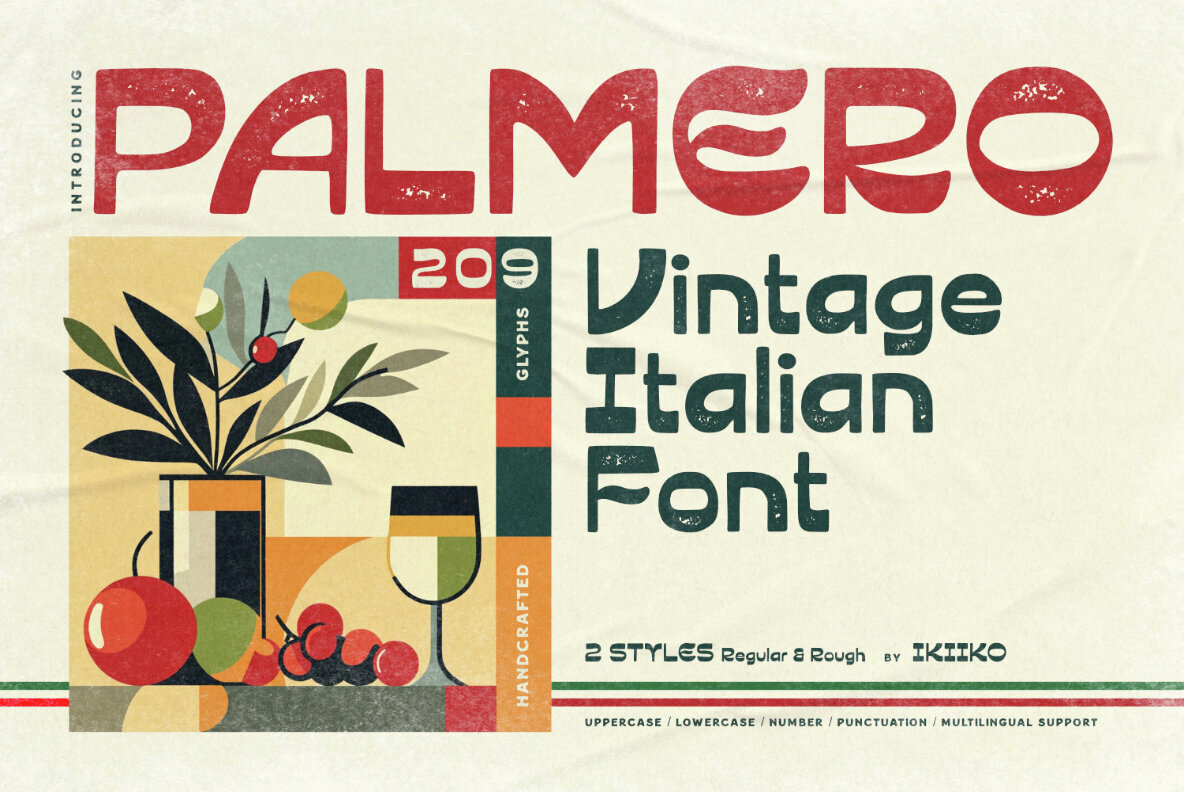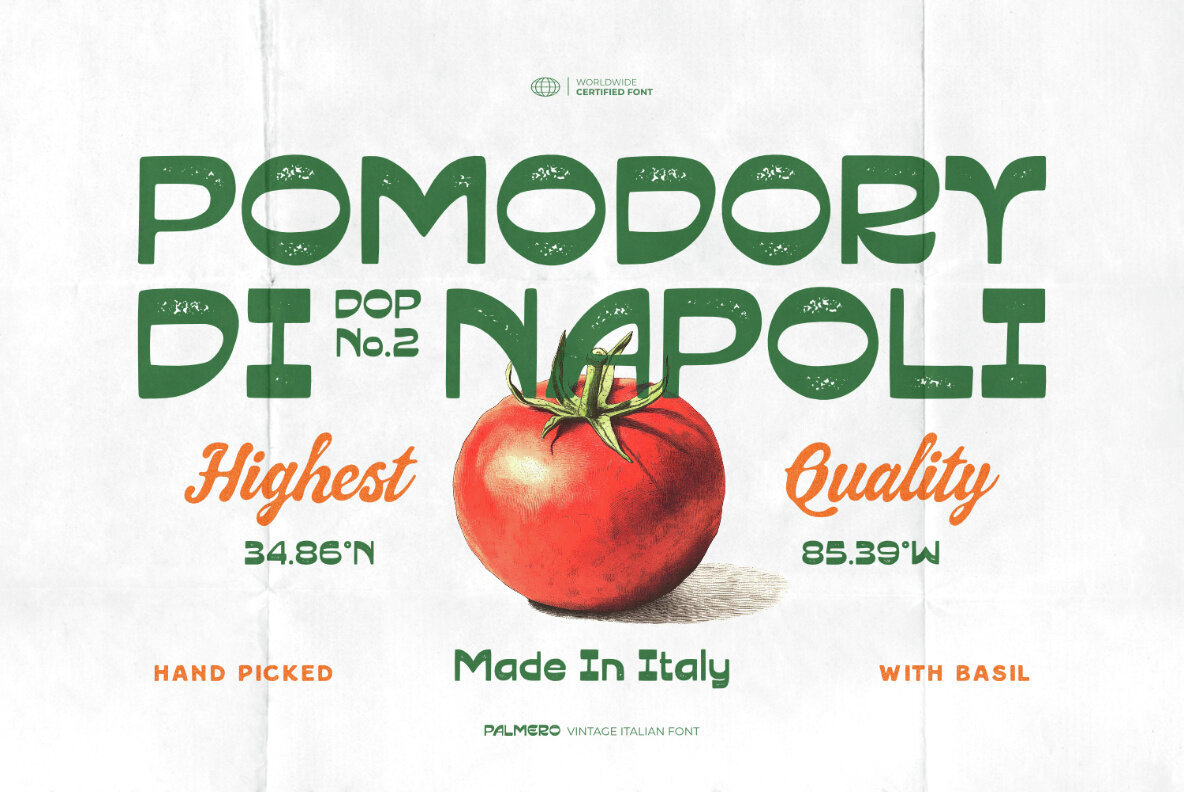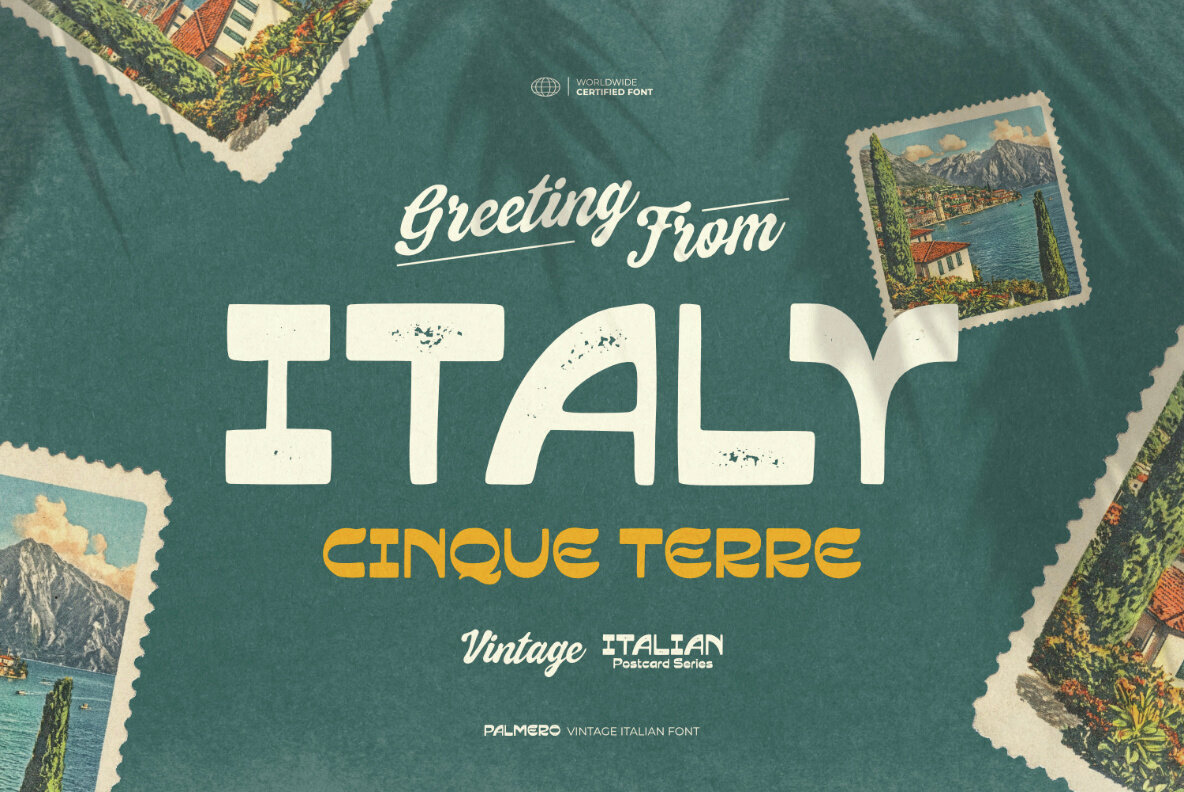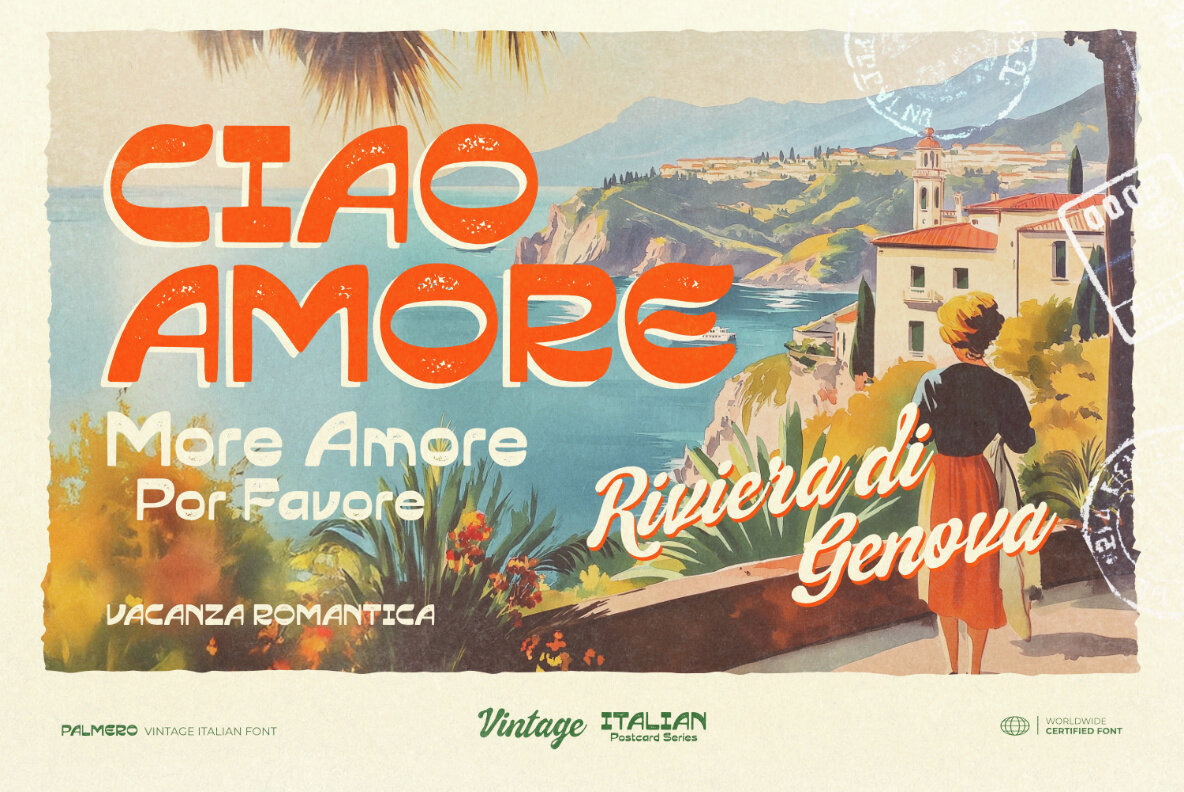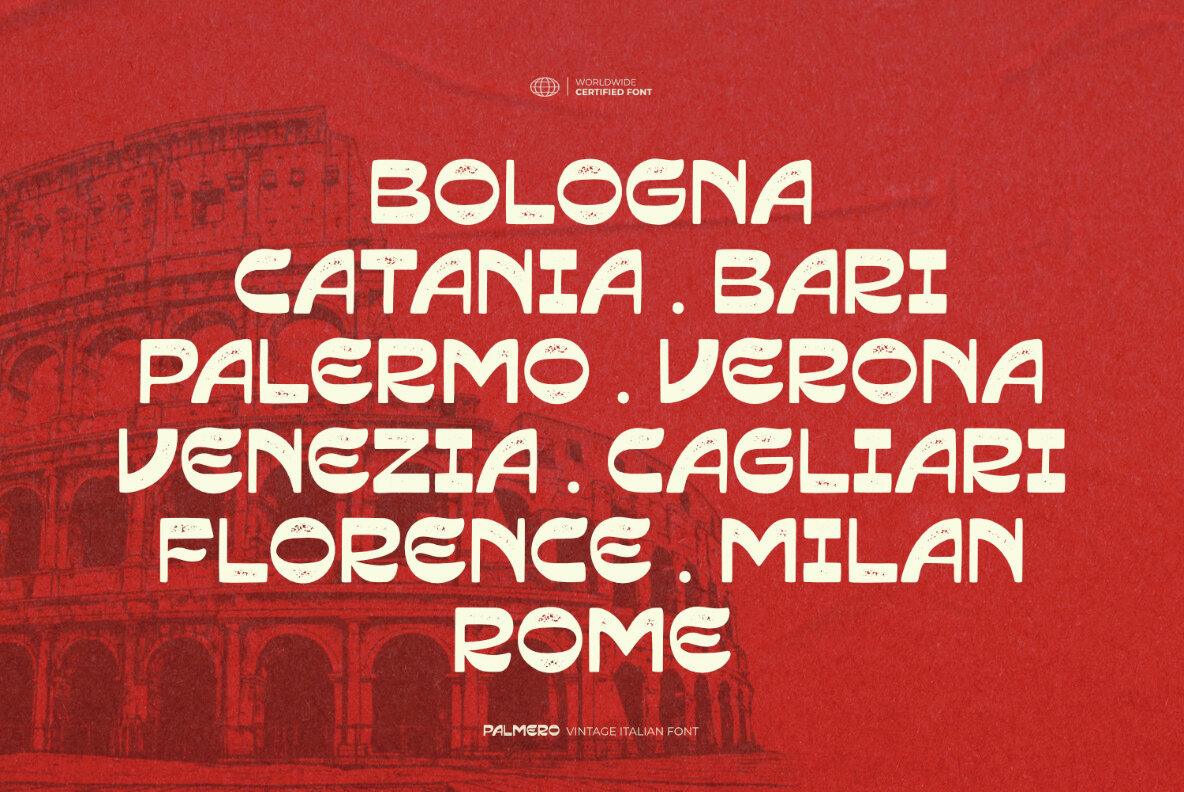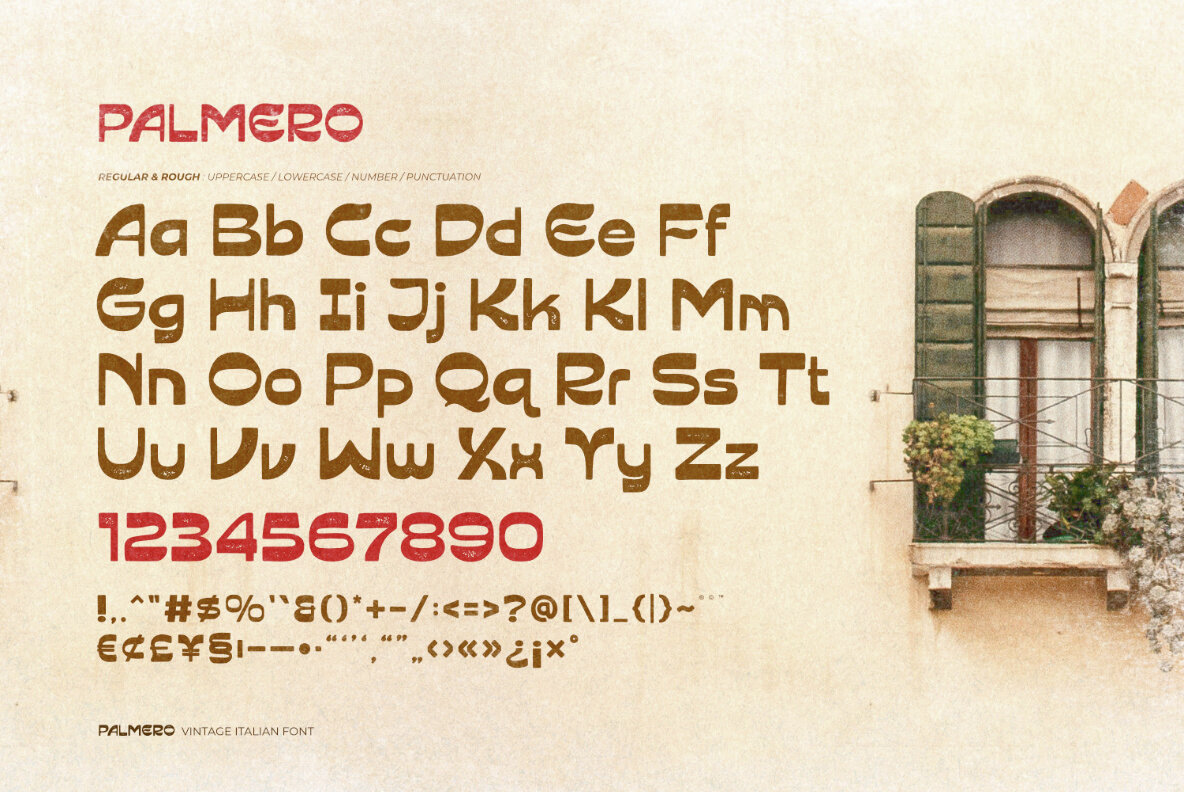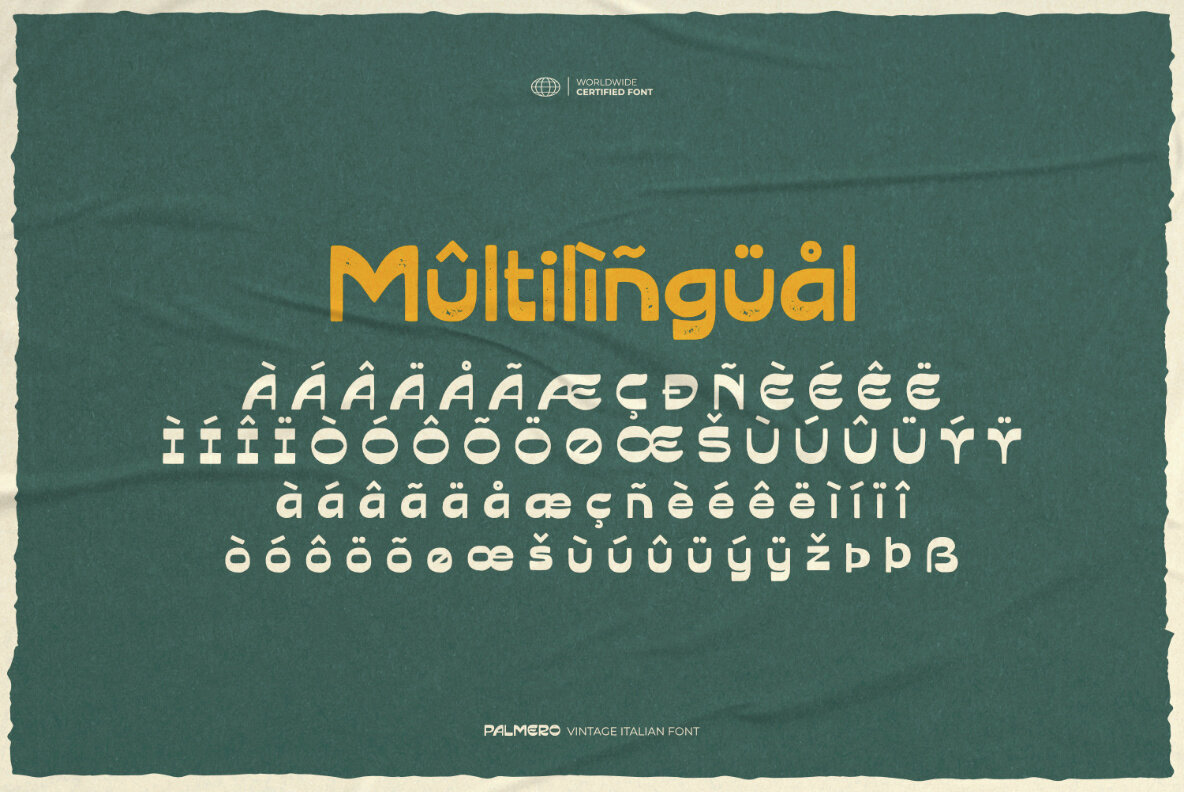
Palmero Font
Proudly Present Palmero - Vintage Italian Font, created by ikiiko. Say ciao to Palmero, a vintage-inspired font that captures the romantic charm of classic Italy, sun-drenched coastlines, and retro travel posters. With its elegant curves and nostalgic flair, Palmero brings the spirit of old postcards, grand tours, and timeless European style into your designs. Available in two distinct styles – Regular & Rough, this typeface lets you choose between clean, classy lines or a more weathered, retro texture that feels like it’s been stamped on well-traveled luggage. Perfect for travel-themed posters, postcards, branding, café menus, and editorial layouts, Palmero adds a touch of Italian soul and vintage sophistication to any project. This font is perfect for a vintage posters, travel stuff, logotype, packaging, book cover, social media ads, invitations, branding projects, food & beverages, quotes, or simply as a stylish text overlay to any background image. What's Included?